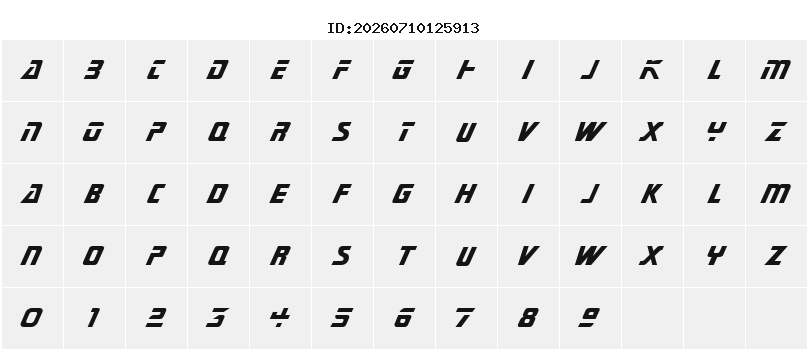
• Font Name: Federation
• Full Font Name: Federation TNG Title
• PostScript Name: FederationTNGTitle
About Federation.ttf
Federation.ttf is a modern, elegant sans-serif font designed for ultimate readability and visual harmony. Perfect for branding, headlines, web design, and print materials.